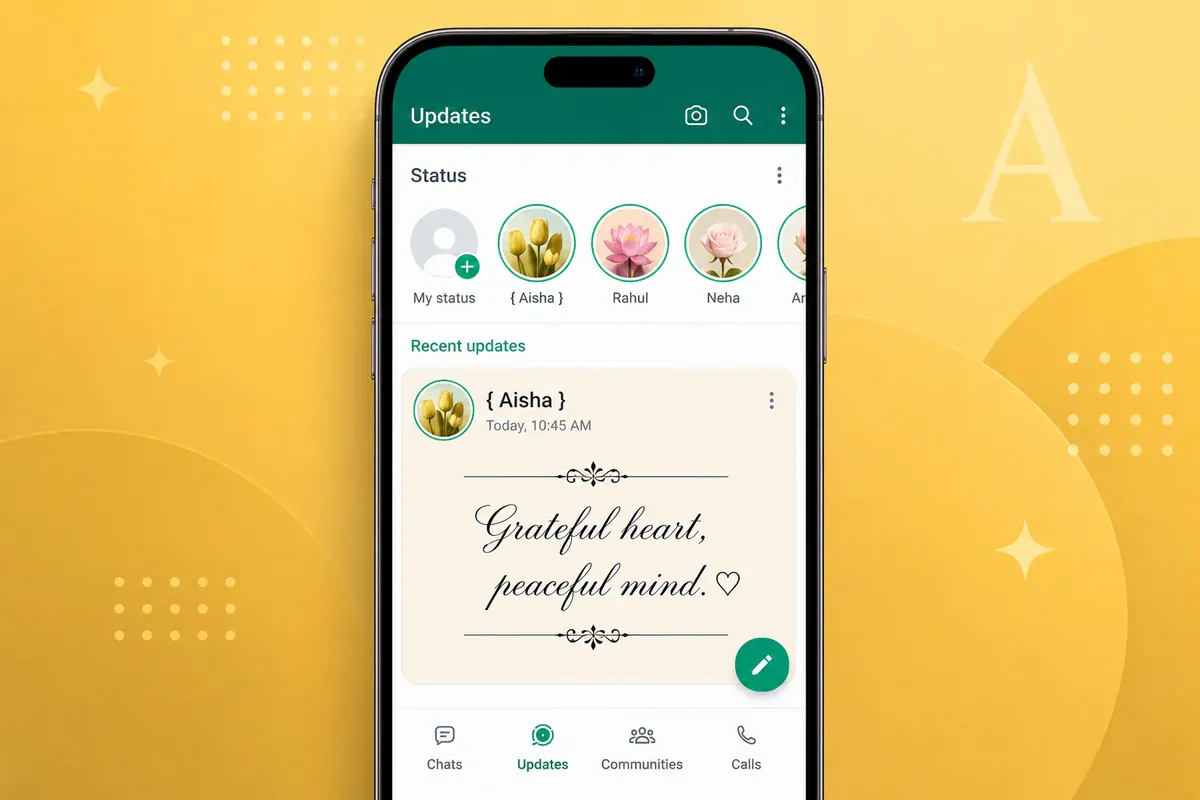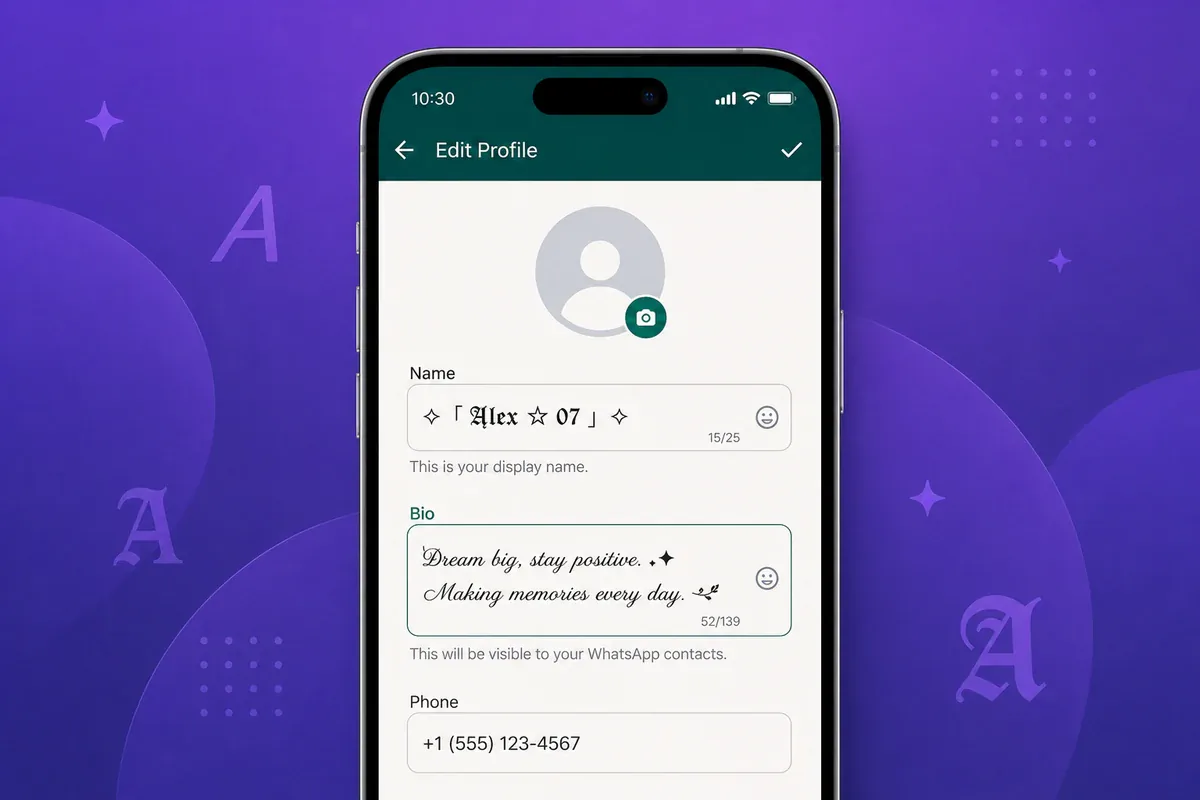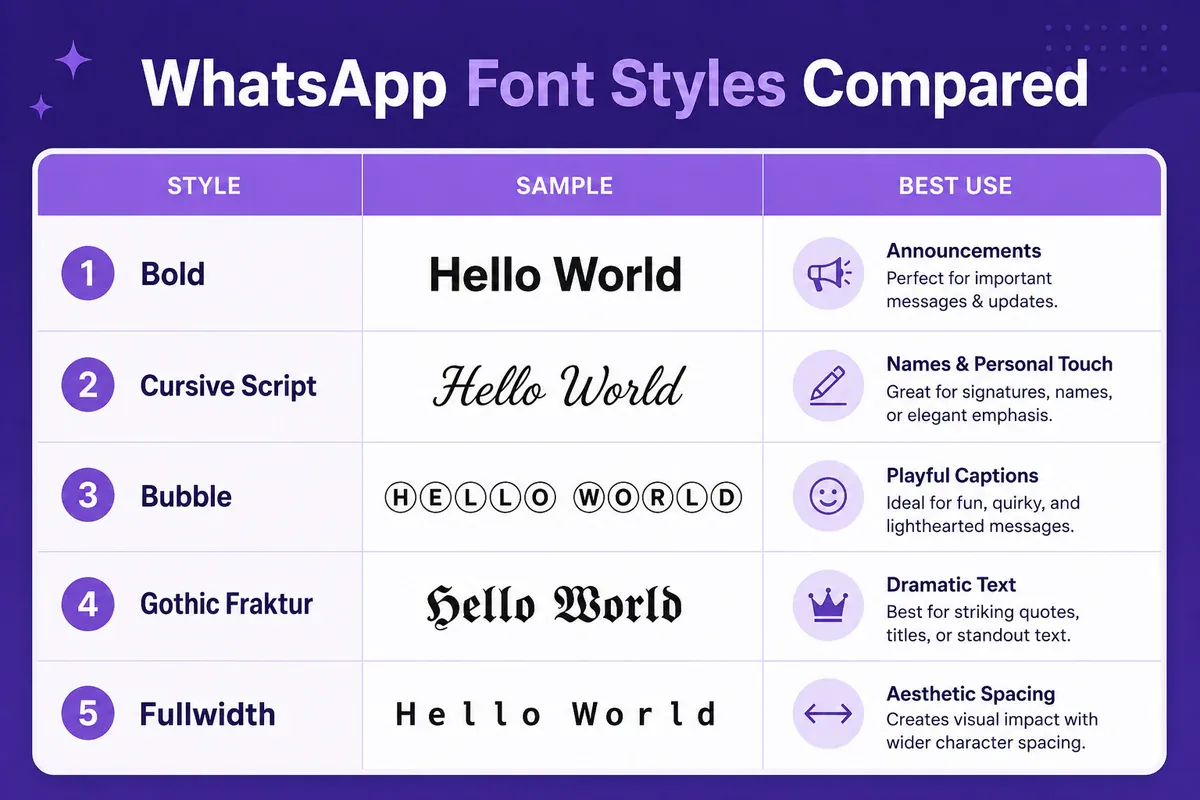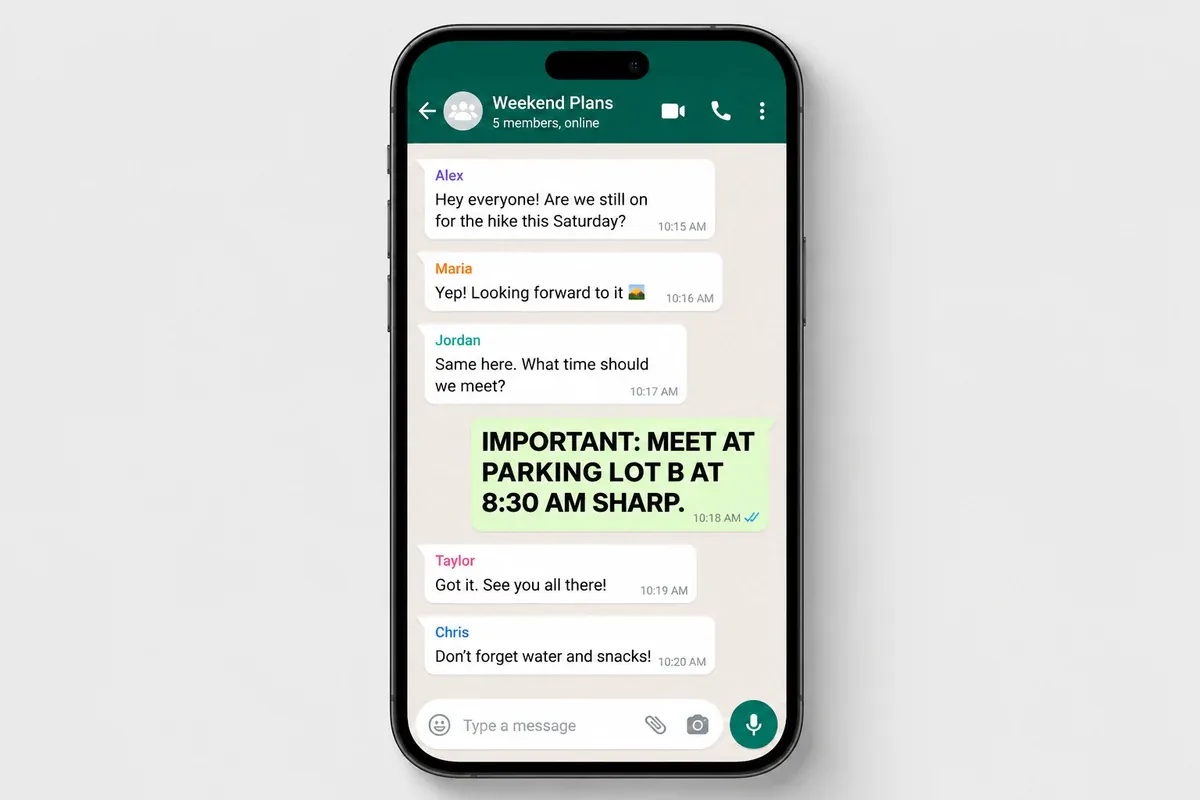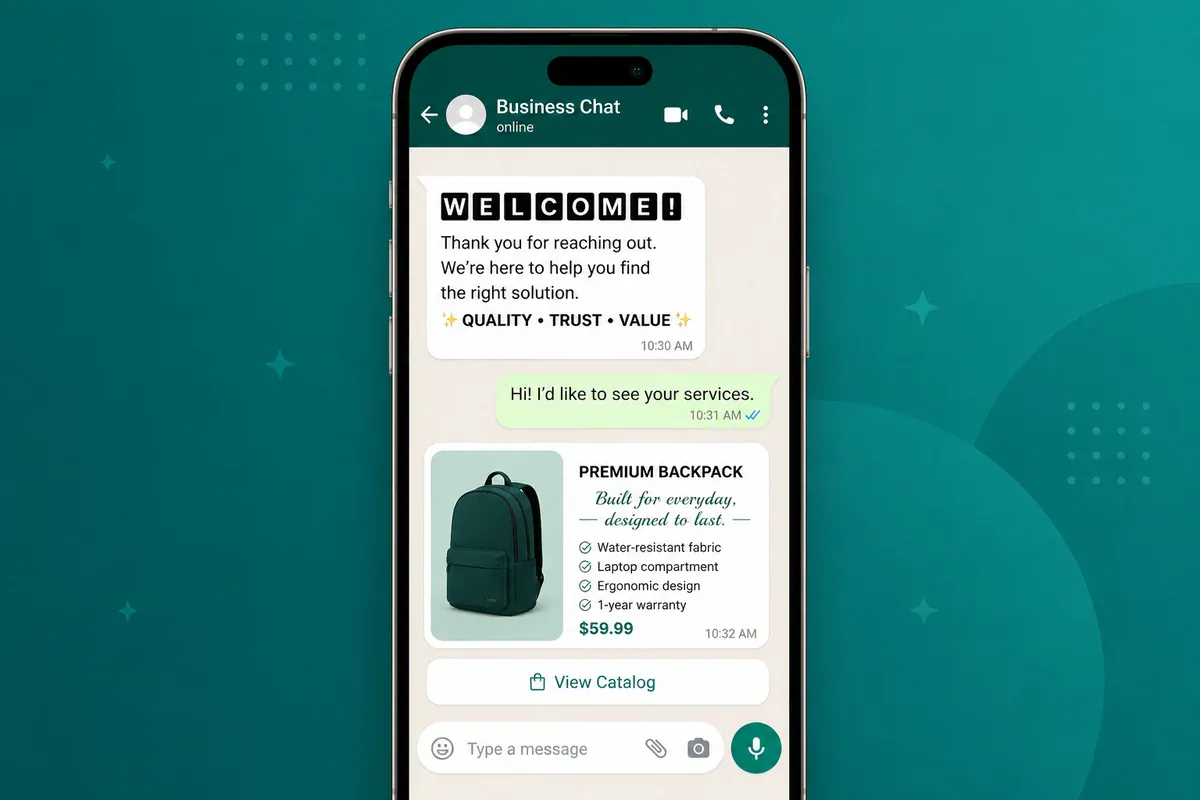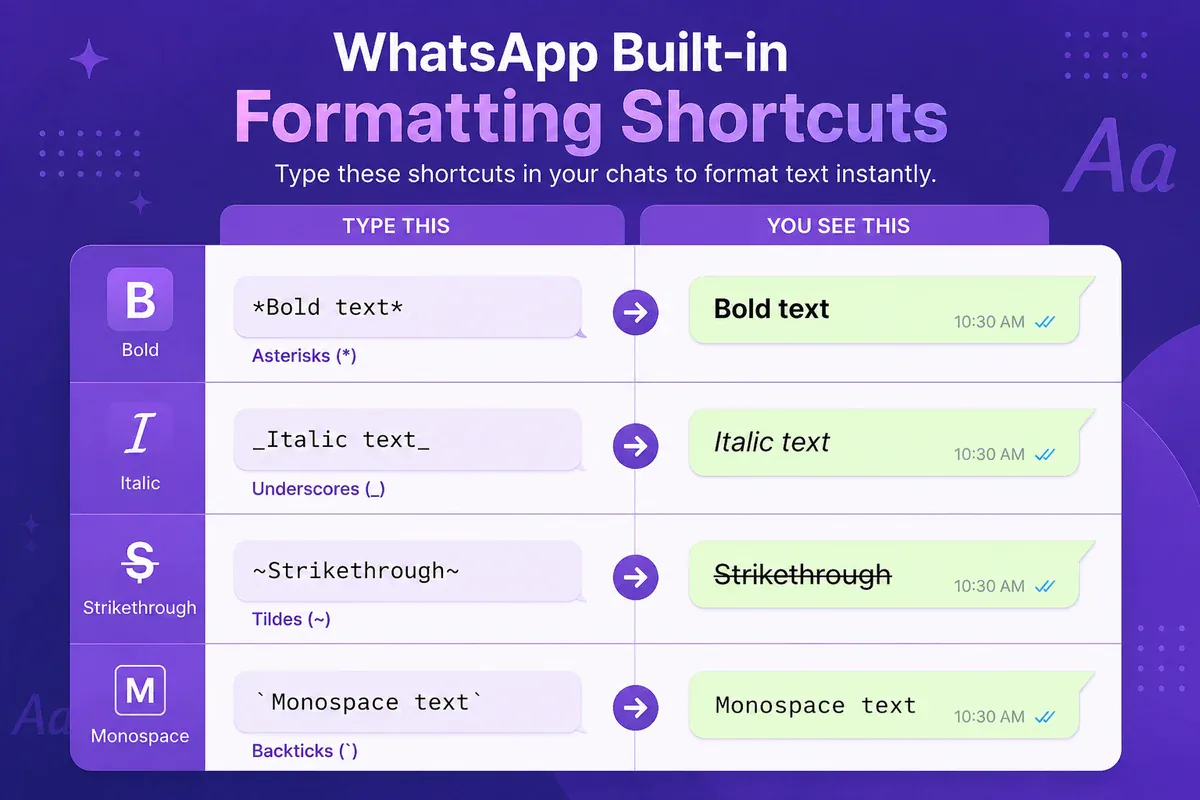
Fonts for WhatsApp: Stylish Text for Status and Bio
Learn how to use fonts for WhatsApp messages, Status, names, and About fields with readable Unicode styles, clear steps, and practical examples.
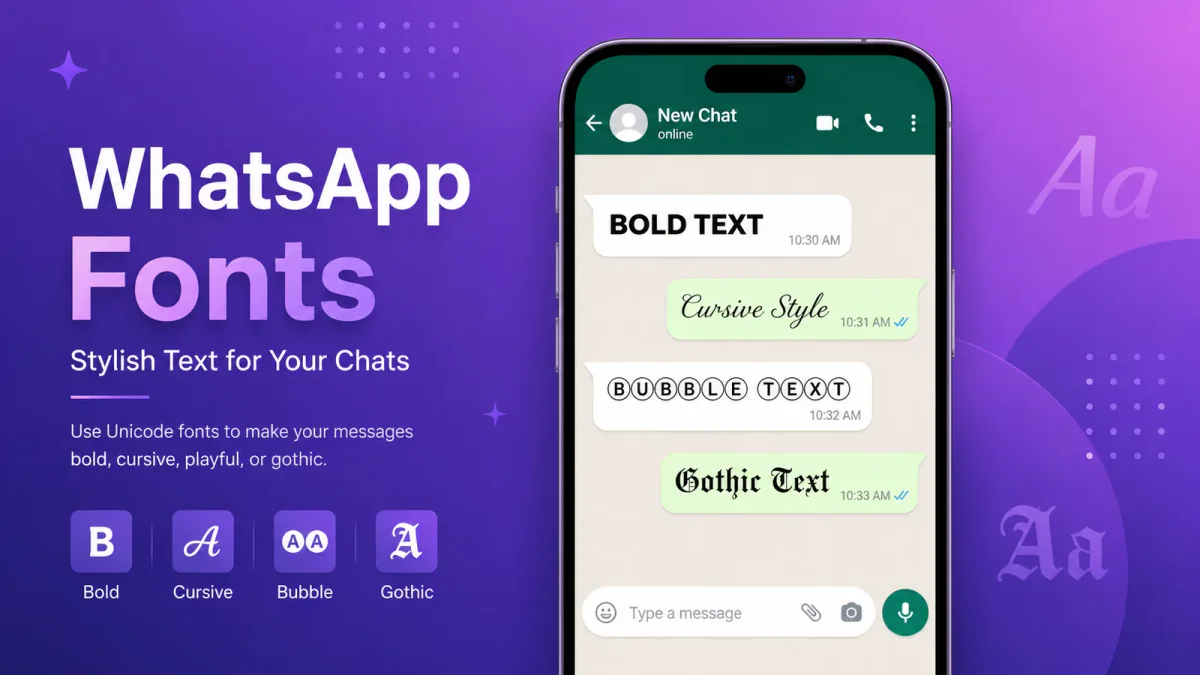
Want to use fonts for WhatsApp messages, Status updates, names, or bios? This guide explains how to create and paste readable Unicode text styles such as bold, cursive, bubble, and Gothic without installing another app.
Follow the quick steps below, then use the detailed sections for messages, Status, profile fields, groups, and WhatsApp Business.
Quick steps:
- Open a browser-based Unicode text generator.
- Type the text you want to style.
- Select a readable Unicode style.
- Tap the copy button next to your chosen style.
- Paste it into a supported WhatsApp text field.
- Preview the result before sending or saving.
- Keep important details in plain text.
What Are Fonts for WhatsApp?
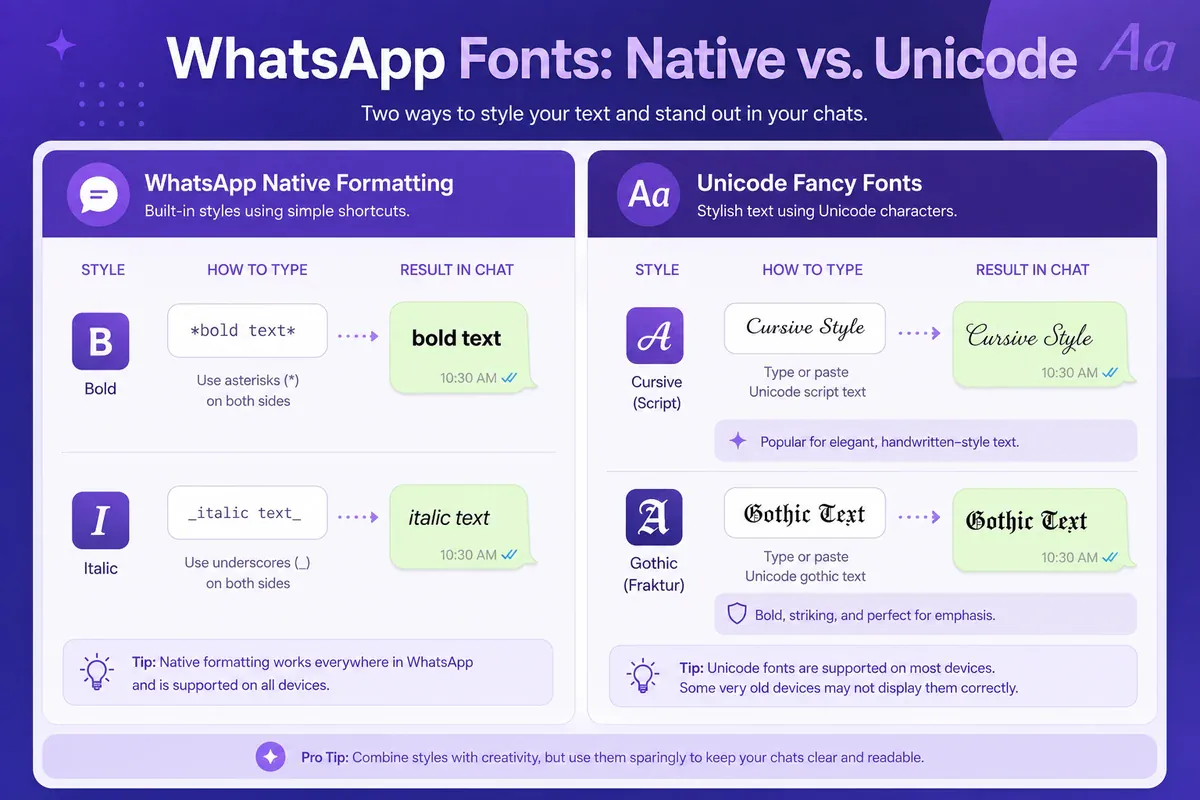
WhatsApp does not include a permanent font picker for ordinary chat text. The styles commonly described as WhatsApp fonts are Unicode characters that resemble lettering such as script, Gothic, bubble, bold, or fullwidth text.
Unicode is the international character-encoding standard used by modern software and devices. Unicode 17.0 contains 159,801 encoded characters. These include mathematical letter-like symbols, fullwidth forms, compatibility characters, and many other symbols.
A Unicode text generator maps ordinary letters to matching characters. For example, entering "Hello" and selecting a script option may produce:
๐๐ฎ๐ต๐ต๐ธ
You can copy those characters and paste them into a supported WhatsApp field. They are sent as text rather than as an image, downloadable font file, or special WhatsApp command.
The familiar term "font generator" is used throughout this guide, but the tool is converting characters rather than installing a new typeface in WhatsApp.
Why the Text May Look Different on Another Device
Decorative characters can appear on many modern phones and computers, but their exact appearance depends on the operating system, installed fonts, app version, and character support.
An unsupported character may appear as a missing-glyph symbol, a blank space, or no visible character. Even when every character is supported, details such as spacing, curves, and stroke weight may differ between devices.
Use decorative Unicode for short headings or greetings. Keep dates, addresses, prices, phone numbers, booking references, and instructions in plain text.
WhatsApp's native formatting works differently. Shortcuts such as *bold*, _italic_, and ~strikethrough~ apply formatting to ordinary message text. Unicode styles replace the original letters with different encoded characters.
How to Use Fonts for WhatsApp Messages
The same copy-and-paste method can be used for personal chats, group conversations, broadcasts, and WhatsApp Web.
-
Open the generator. Visit the WhatsApp font generator in your phone or desktop browser.
-
Type your text. Enter the word, name, heading, or sentence you want to style.
-
Review the available styles. The page currently presents 15 WhatsApp-focused Unicode options.
-
Choose a readable option. Check every letter, number, punctuation mark, and symbol before copying.
-
Copy the converted text. Use the copy control beside your chosen style.
-
Open WhatsApp and paste. Go to the intended chat and paste the text into the message field.
-
Review and send. The same Unicode text is sent, although its shape and spacing may look different on another device.
You can mix styled and ordinary text in the same message. A short heading can use Unicode while dates, instructions, addresses, and contact details remain in plain text.
Use decorative text for short headings, greetings, names, and captions. Instead, store dates, prices, addresses, phone numbers, booking references, instructions, and other essential information in plain text or WhatsApp's native formatting.